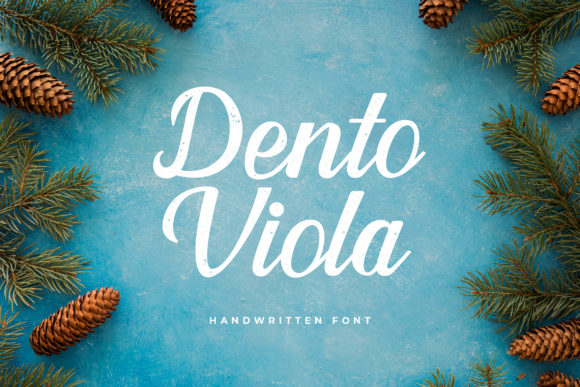
Behold, the captivating Dento Viola font, a breathtaking script meticulously designed to awaken your creative spirit. This exquisite handwritten font, crafted with the utmost care by the talented uicreativenet, stands as a testament to the beauty of flowing lines and graceful curves.
With its well-balanced strokes and mesmerizing rhythm, Dento Viola beckons you to embrace the art of calligraphy, inviting you to explore the depths of your imagination. Let your words dance across the page, guided by the gentle curves and elegant flourishes of this remarkable font.
Unleash the romantic essence of Dento Viola in your wedding invitations, adding a touch of timeless elegance to your special day. Let your love story unfold in a symphony of swirls and twirls, capturing the essence of your emotions in a way that words alone cannot convey.
Step into the world of enchanting logos and branding with Dento Viola, where your designs will radiate a sense of sophistication and charm. Allow your brand's identity to blossom, captivating your audience with a visual masterpiece that speaks volumes about your dedication to excellence.
Dento Viola is more than just a font; it's an artistic journey, an invitation to transcend the boundaries of ordinary design and embark on a creative odyssey. Let your imagination soar as you discover the endless possibilities that await you within the strokes of this exceptional font.